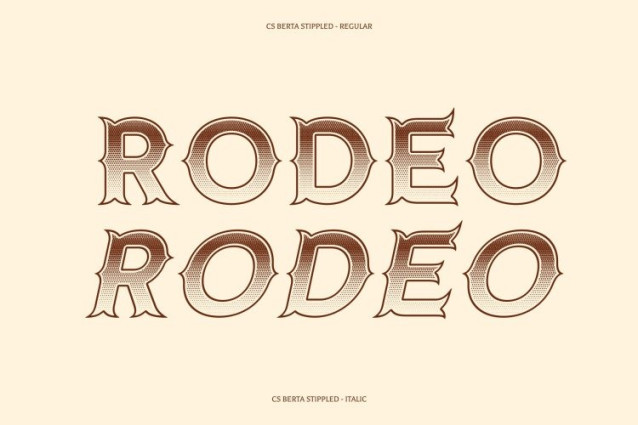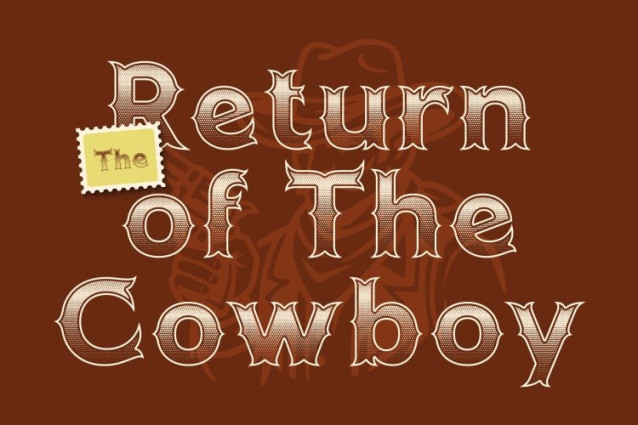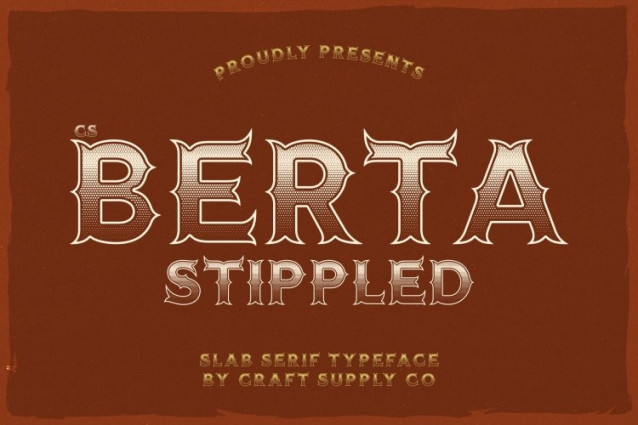
CS Berta Stippled Font
CS Berta Stippled Font – This is a striking display serif font inspired by traditional Tuscan typography, now enriched with a dense stippled texture. Its bold decorative serifs, sharp pointed terminals, and distinctive cross-line details are enhanced by subtle dotwork, adding depth and a handcrafted engraved feel to its already dramatic structure.
Nostalgic Boldness with Textured Character
The Tuscan style evokes timeless vintage charm, while the stippled detailing introduces warmth and dimension. This textured finish amplifies the font’s retro personality, making each letter appear rich, layered, and visually commanding. The combination of strong forms and ornamental flair ensures standout impact in any display setting.
Dramatic Presence with Retro Elegance
This font balances boldness and nostalgia with refined control. Its robust letterforms maintain clarity and legibility, while the decorative serifs and textured surface create a sense of authenticity reminiscent of old signage, circus posters, and heritage branding.
Perfect for Vintage, Retro, and Statement Designs
Ideal for posters, logos, packaging, branding, and promotional materials, this font delivers a powerful vintage aesthetic with artistic depth. Its blend of Tuscan ornamentation and stippled artistry makes it an excellent choice for projects that aim to celebrate retro charm while remaining visually striking and relevant.